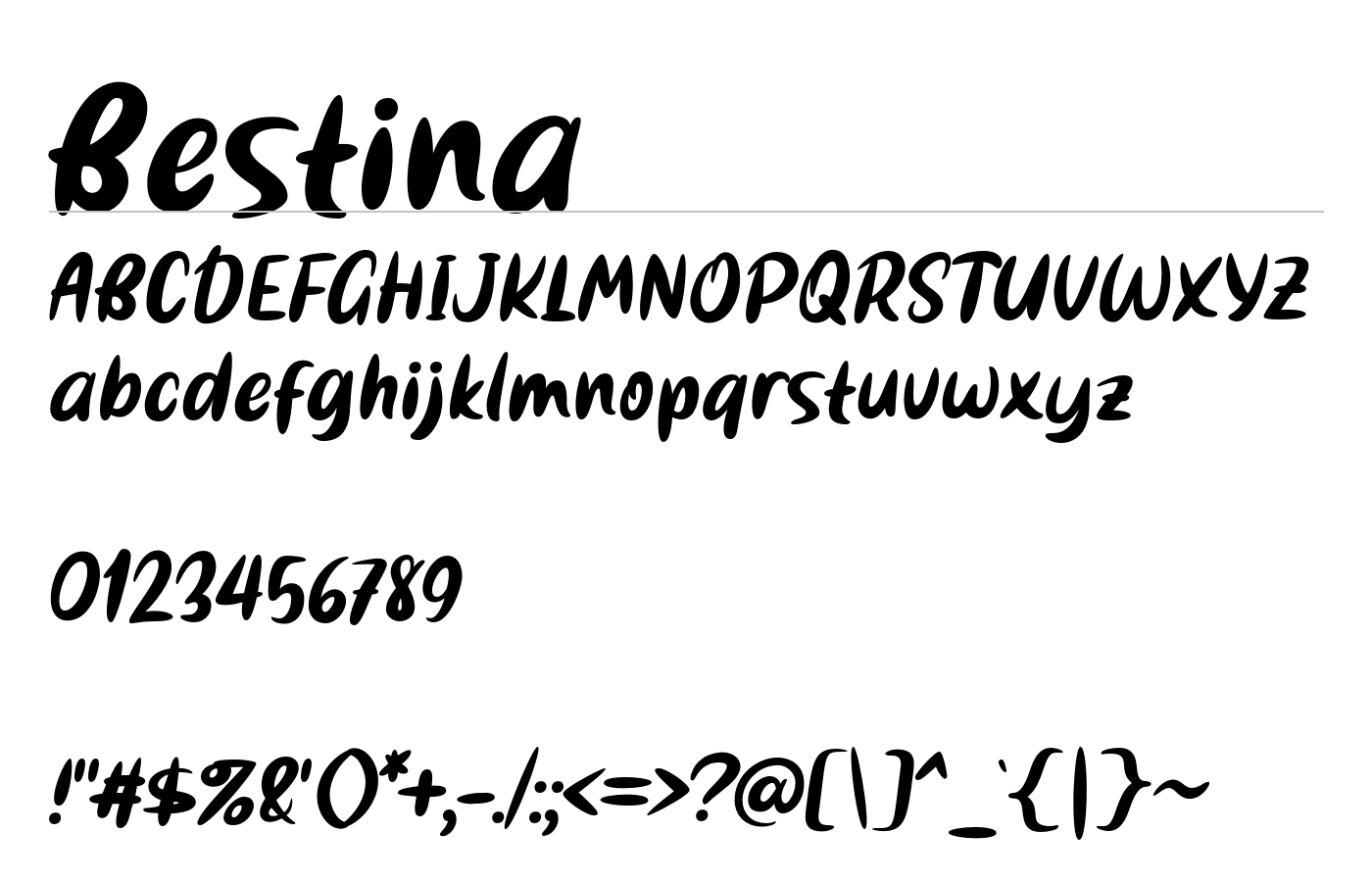
Bestina is a bold, playful script font featuring smooth, rounded strokes that give it a casual, hand-lettered feel. Its medium x-height and moderate contrast ensure good readability, making it ideal for friendly, approachable branding, creative headlines, and informal designs that need a warm and lively touch.
Bestina Font
About Bestina Font